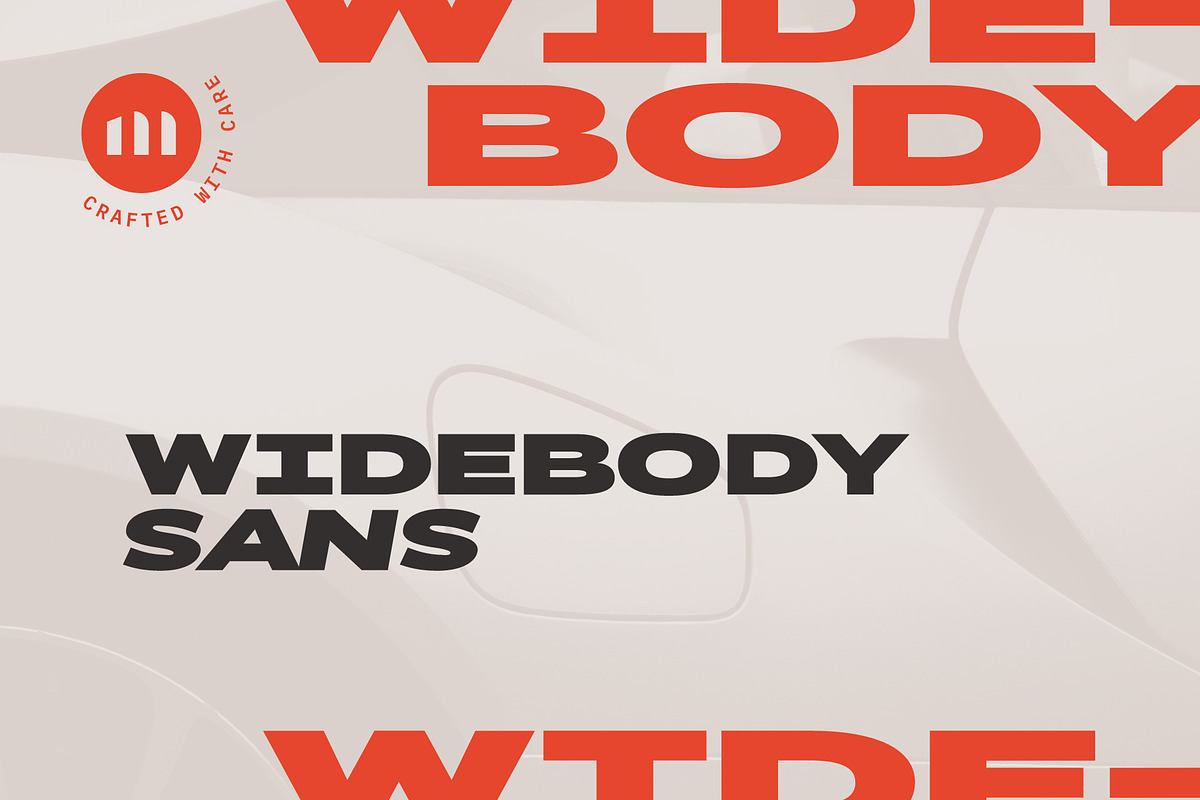
The Widebody Sans Font Free Download is a bold and contemporary sans-serif typeface designed for high-impact designs. Perfect for branding, logos, posters, headlines, and any project that requires a strong typographic presence, this font features wide letterforms with a modern, geometric style.
With its clean lines and strong character, Widebody Sans is ideal for designs that need to stand out and make a statement. It includes uppercase and lowercase letters, numbers, punctuation, and multilingual support, ensuring flexibility for a wide range of creative applications.